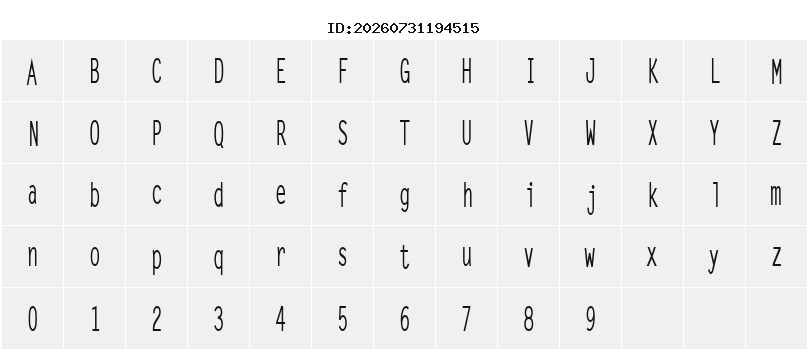
About Lechter Thin.ttf
Lechter Thin.ttf is a modern, elegant sans-serif font designed for ultimate readability and visual harmony. Perfect for branding, headlines, web design, and print materials.